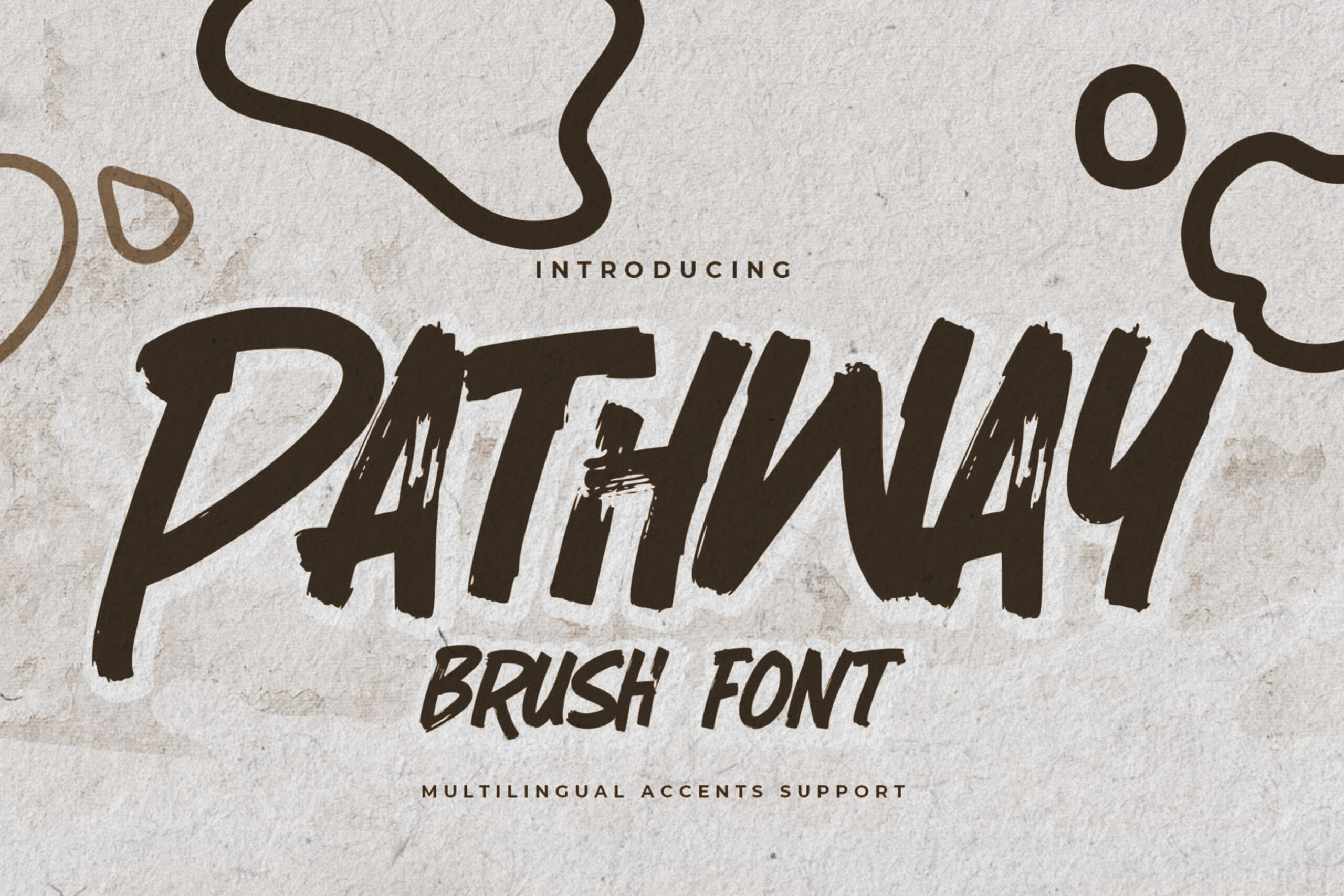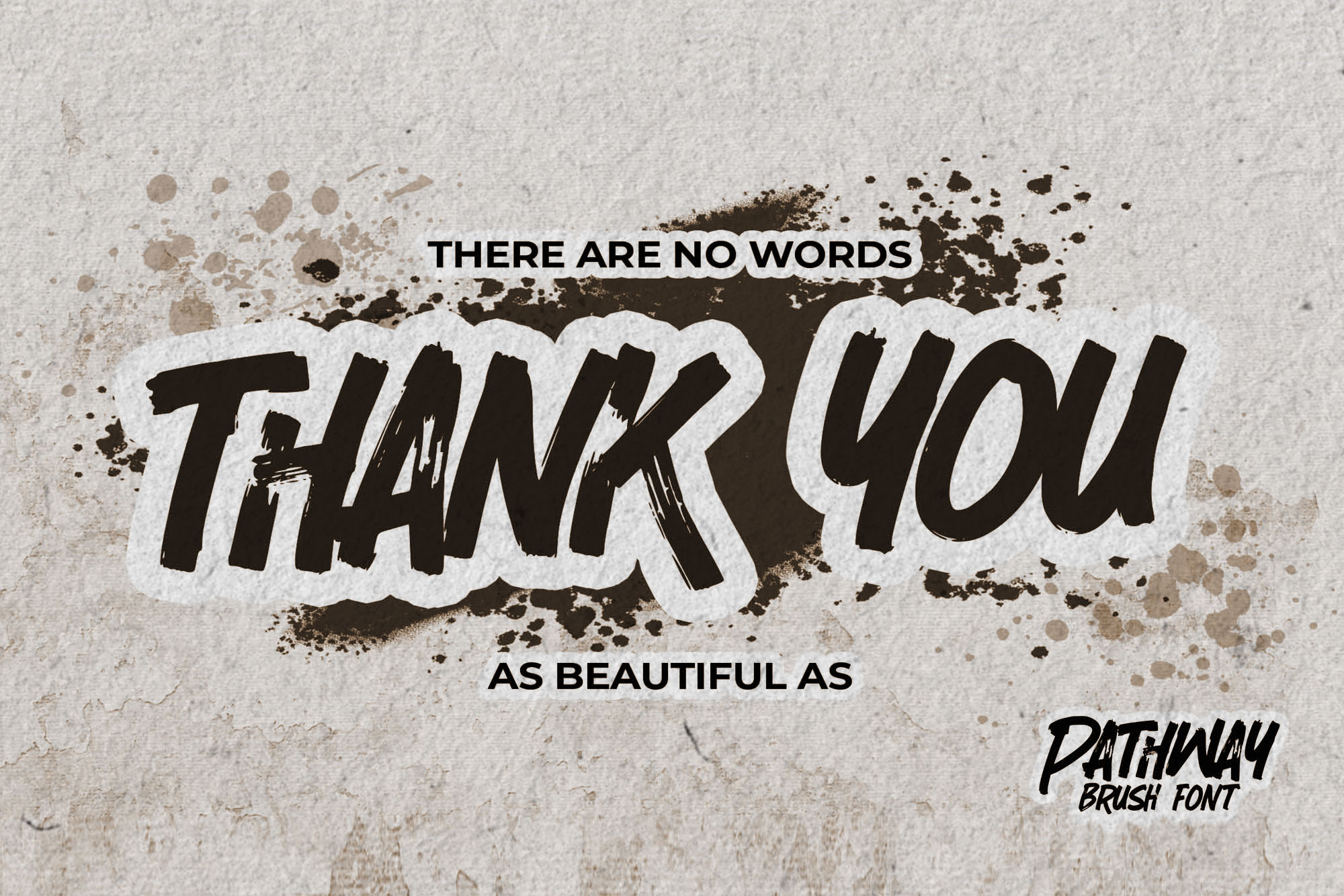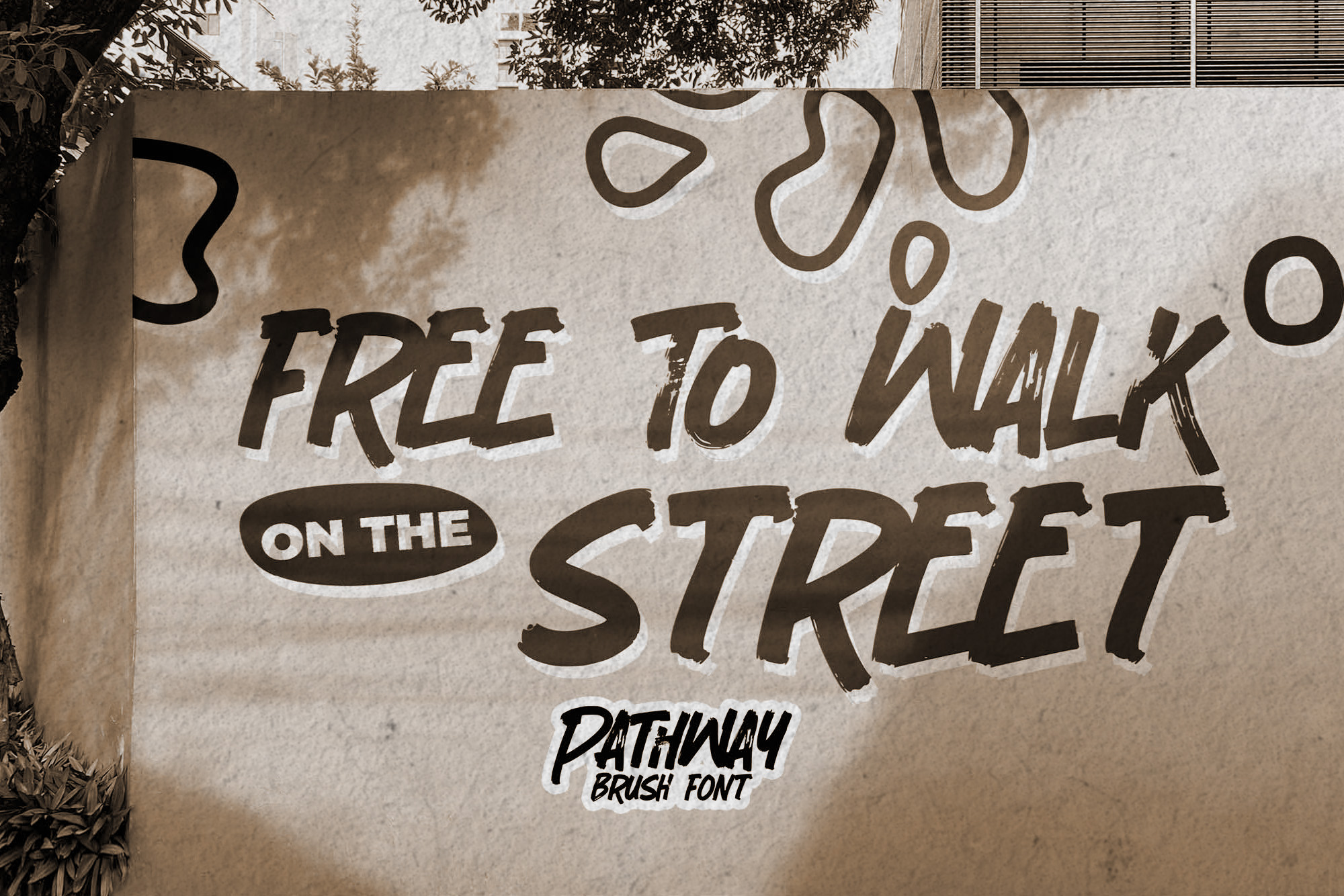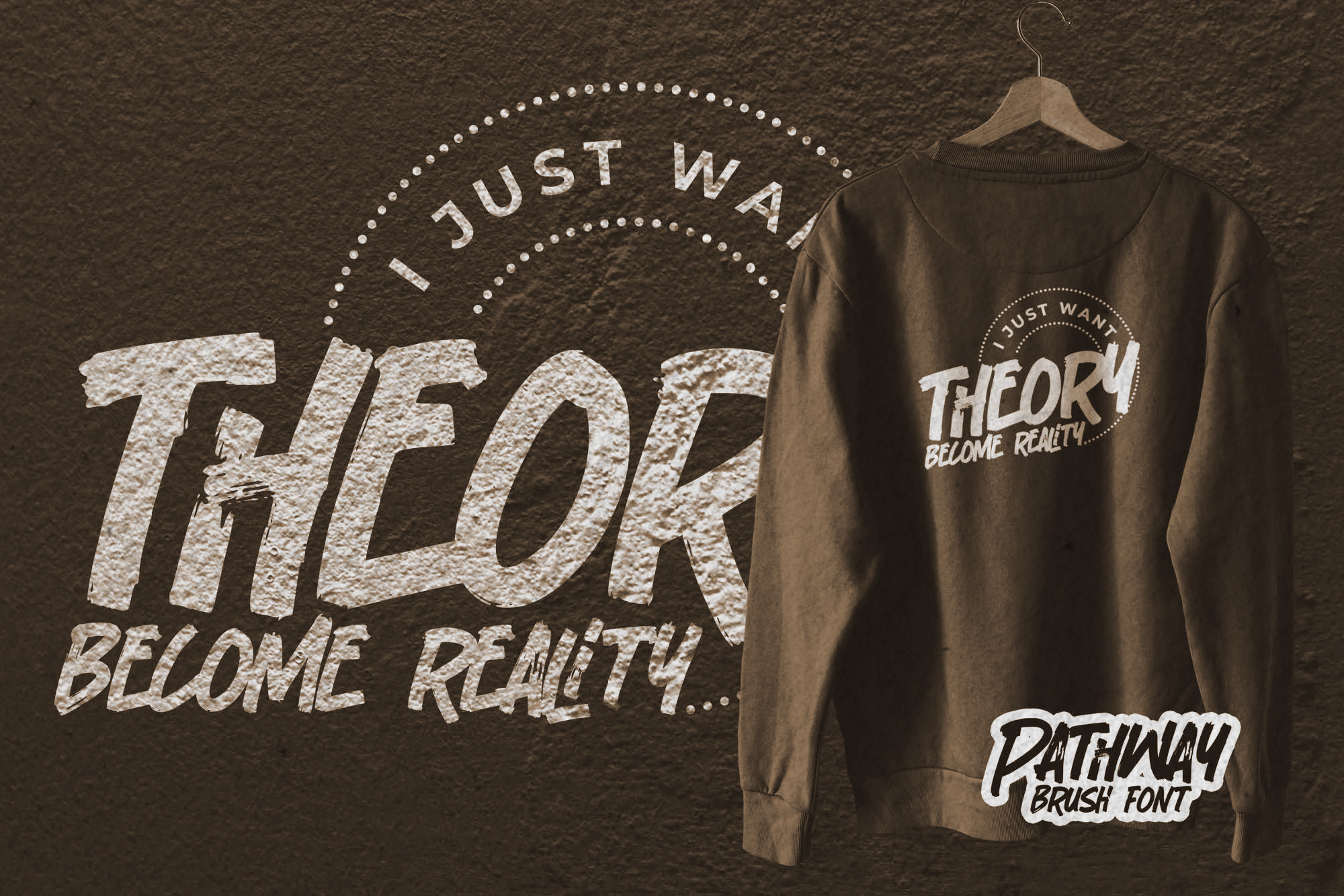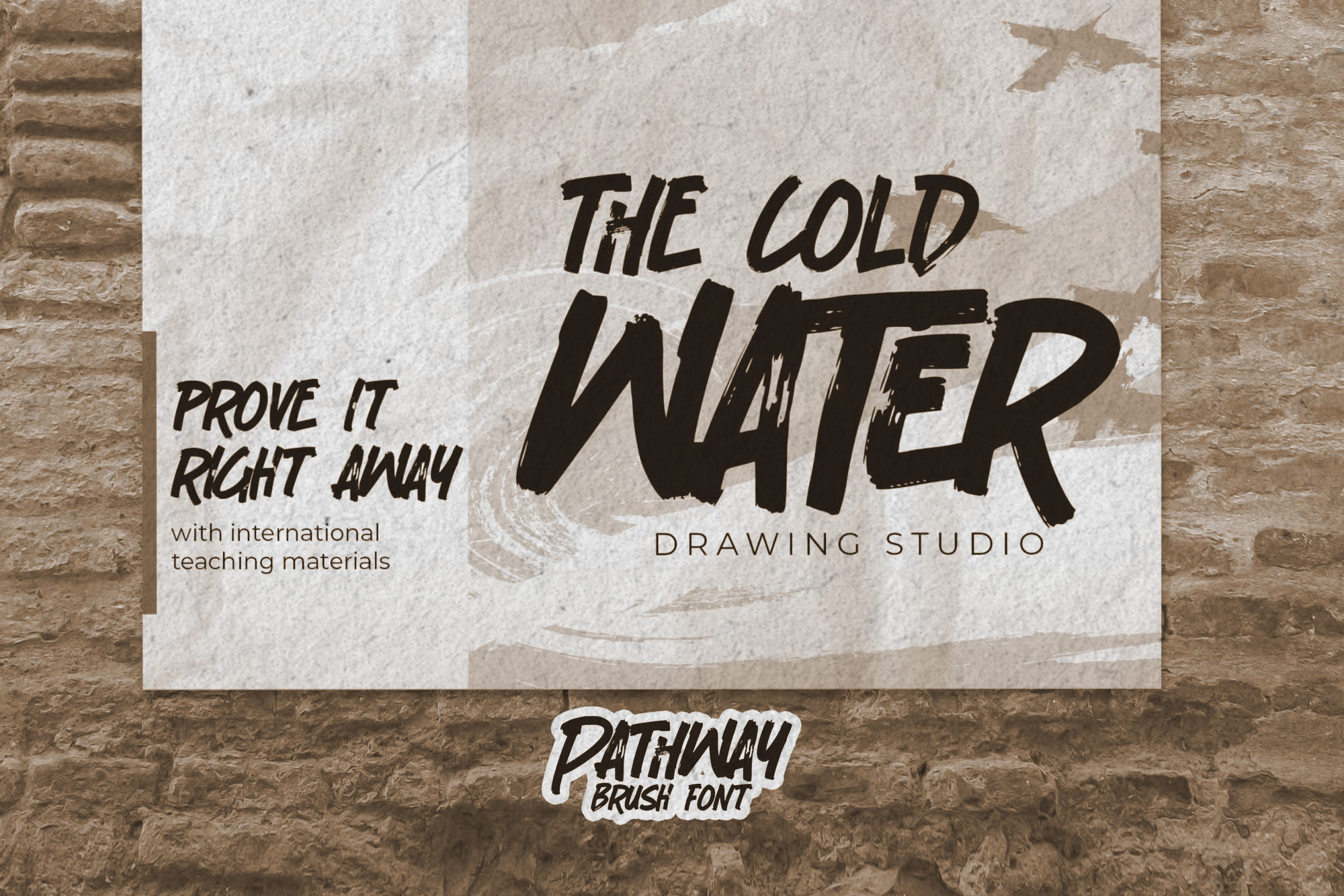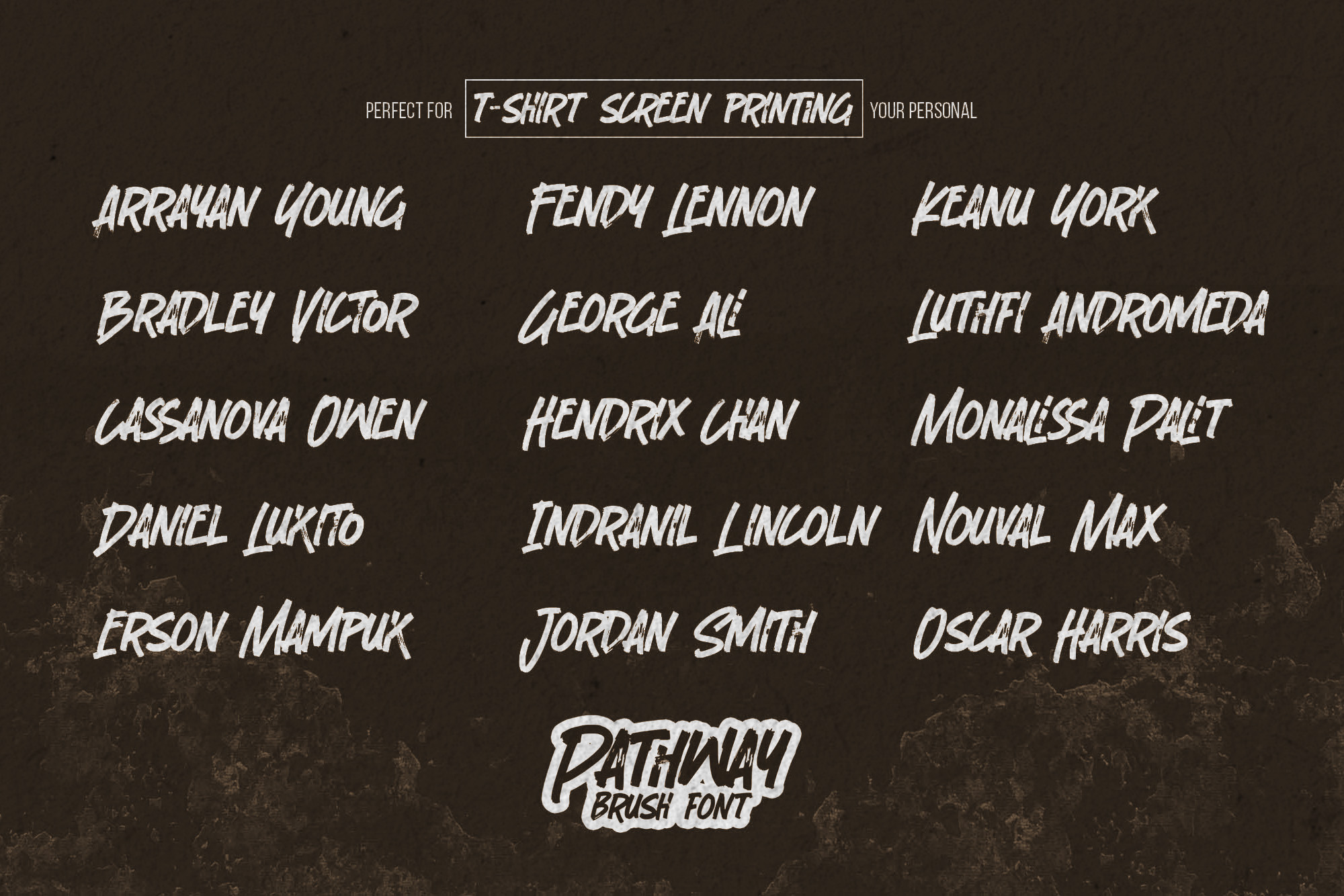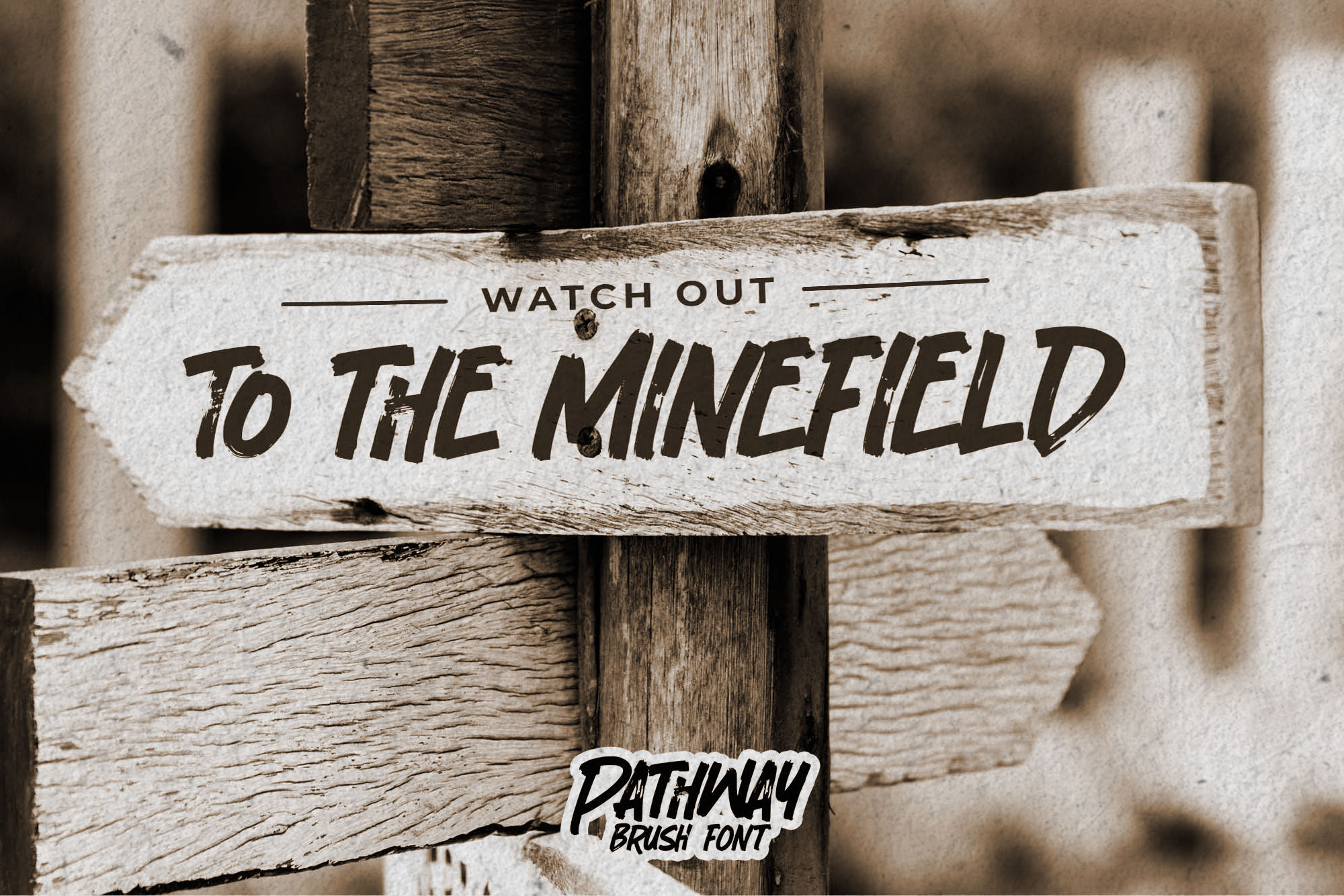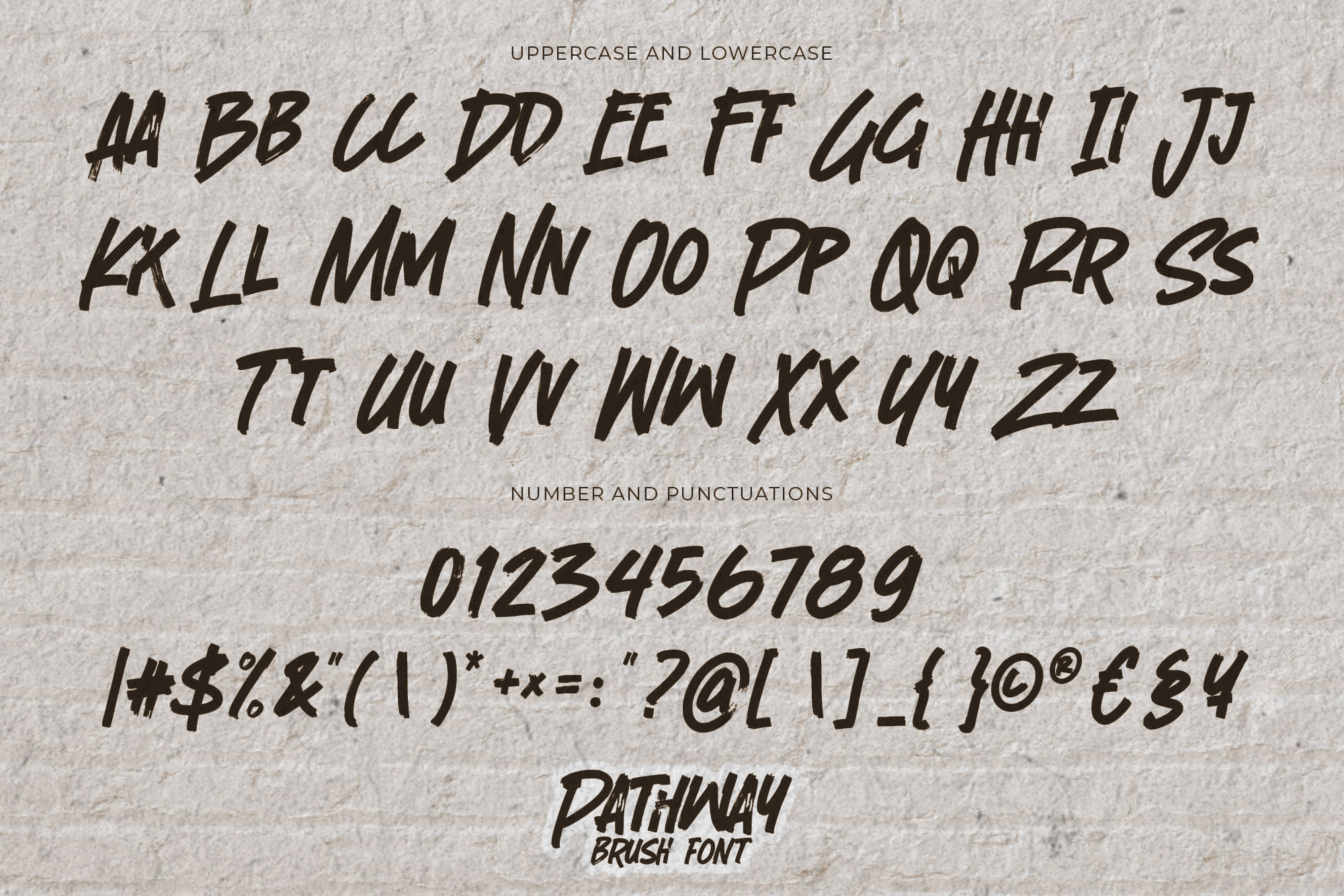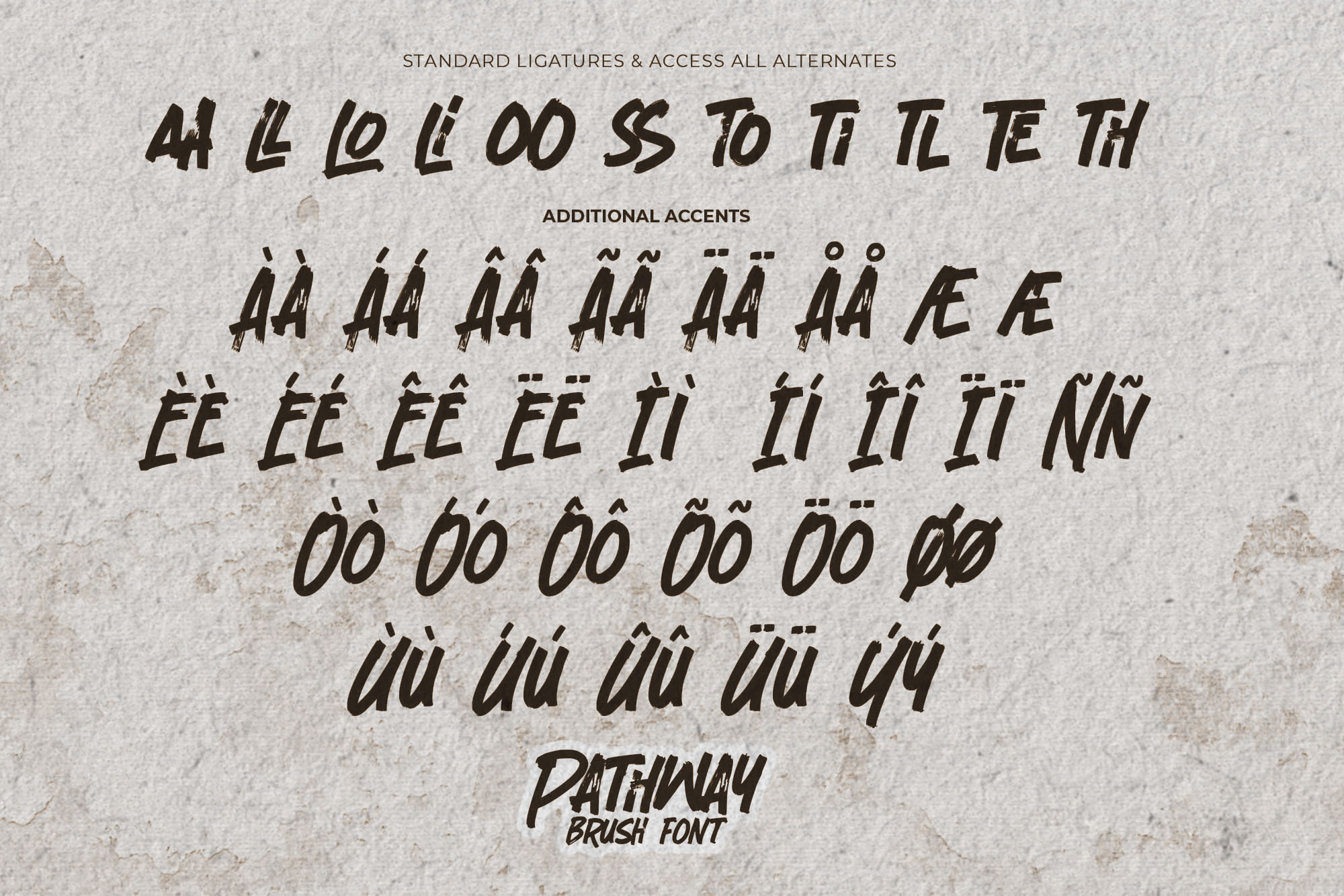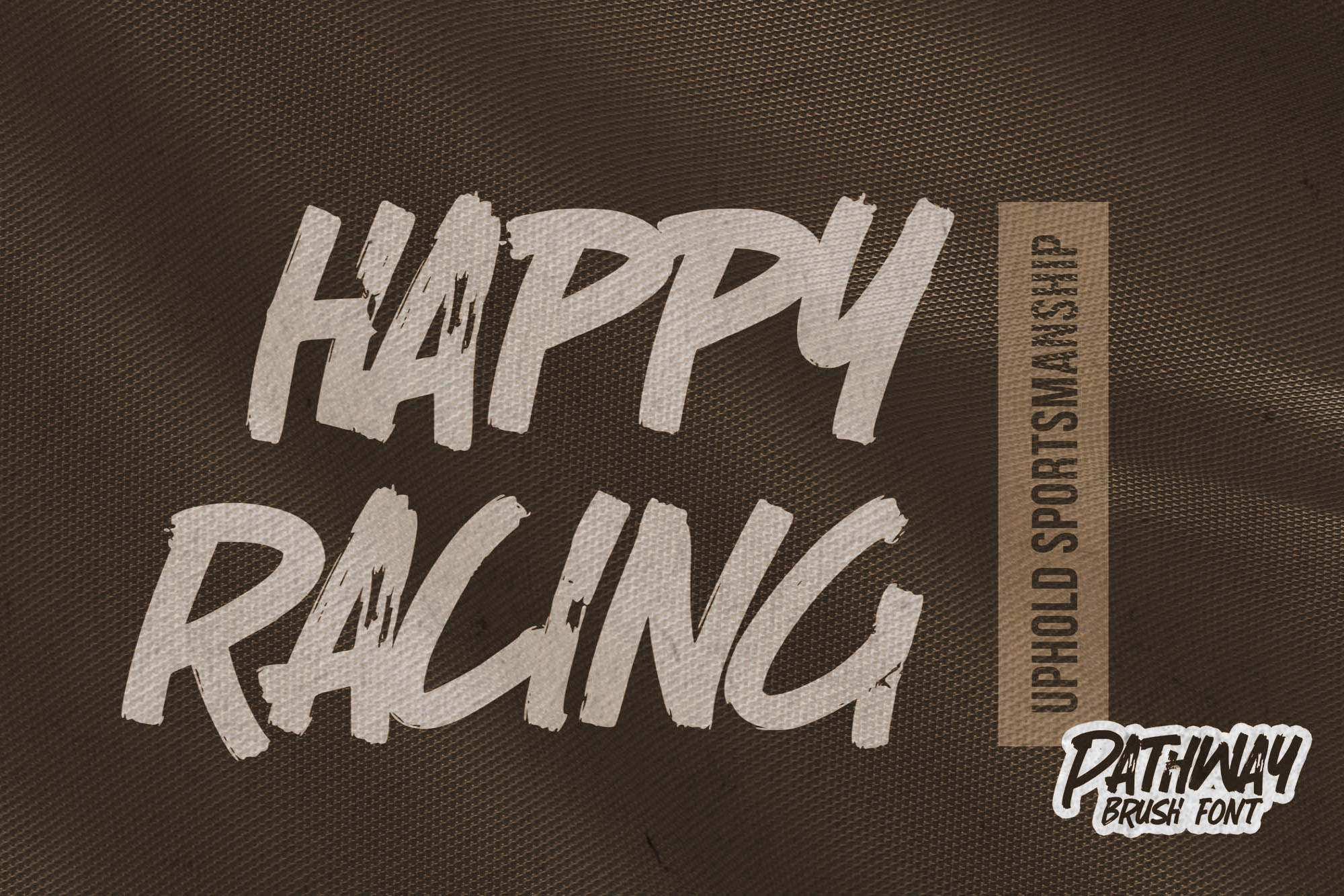
PATHWAY – Brush Font, modern style and dramatic movement that is written casually and quickly.
The best for labels, poster, project designs look ,strong and cool . It’s perfect for labels, quotes, posters, DIY projects, branding, packaging, greeting cards, websites, photography overlays, signs, scrapbooking, tags and so much more! That is why PATHWAY has a textured, and unique characteristic more natural look. You can activate Ligatures OpenType panel.